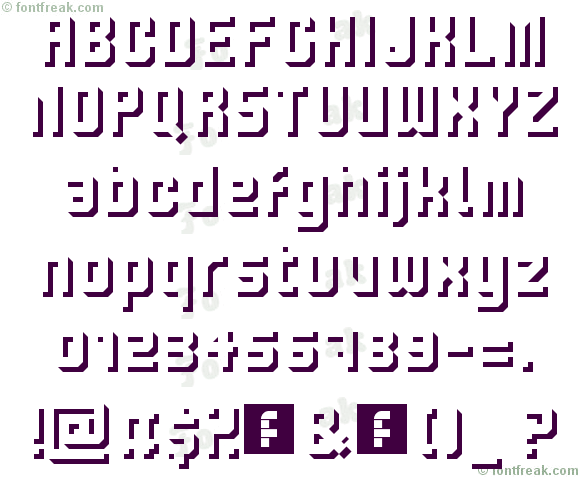
Hard Light Regular
The Hard Light font, crafted by the talented Tobias Sommer, is a striking display typeface that combines a unique blend of strength and elegance. As a freeware font, it offers designers and creators an opportunity to incorporate its distinctive style into their projects without any cost. The font features a robust structure with a contemporary flair, characterized by bold stroke weights and minimal contrast that create a sense of balance and readability. The clean lines and well-defined letterforms contribute to its versatility, making it suitable for a variety of applications.
Visually, Hard Light showcases a modern aesthetic with its geometric shapes and uniform spacing, which enhances legibility and gives it a polished look. The absence of excessive decorative elements allows it to maintain a professional appeal, while still offering enough character to stand out in any design. This makes it an excellent choice for a diverse range of use cases, including eye-catching movie posters, stylish restaurant menus, dynamic branding materials, and engaging social media graphics.
The target audience for the Hard Light font encompasses graphic designers, small business owners, and content creators who seek a bold yet refined typeface to elevate their work. Its ability to convey a modern and sophisticated tone makes it an ideal choice for those looking to make a memorable impression.
What truly sets the Hard Light font apart is its harmonious blend of strength and elegance, making it a versatile addition to any designer's toolkit. Whether you are creating promotional materials or digital content, the Hard Light font free download offers an opportunity to enhance your projects with a unique typographic style that resonates with contemporary design trends. Experience the impact of Hard Light in your next creative endeavor.